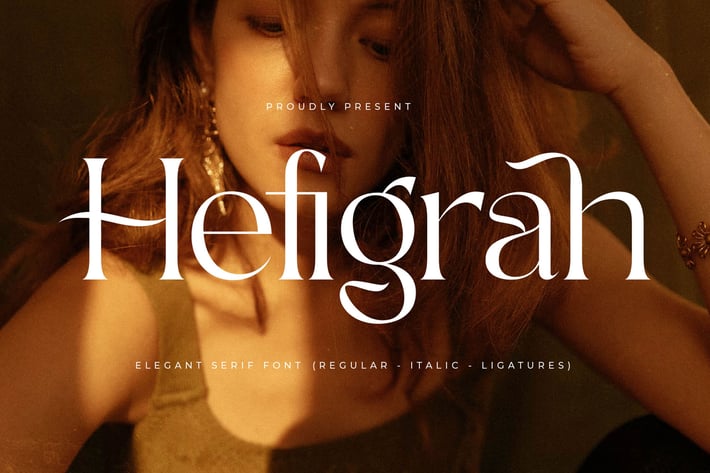
Hefigrah Elegant Serif Font
Hefigrah is an elegant serif font crafted with refined curves and graceful contrast, designed to feel timeless yet fashion-forward. It carries a soft luxury tone that elevates any layout, making your typography look polished, confident, and effortlessly high-end.
Elegant serif style with refined proportions
Includes regular & italic styles with ligatures
Smooth contrast for a classy, editorial look
Strong readability with a premium feel
Perfect balance between modern and timeless
Luxury branding & fashion labels
Editorial layouts & magazine headlines
Beauty, jewelry, and lifestyle brands
Posters, lookbooks, and presentations
Elegant logos & premium typography systems
Sophisticated, graceful, and quietly powerful — Hefigrah brings luxury into every letter.*